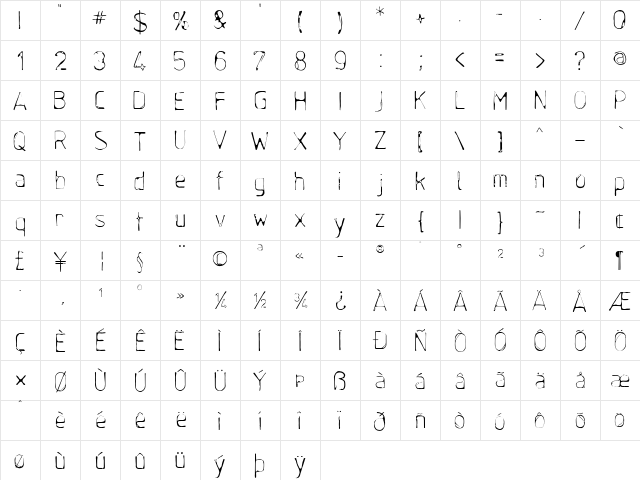
Boomshanker Regular
Design Context for Boomshanker Typeface
Boomshanker offers clean, dependable letterforms without strong stylistic allegiance, making it a practical choice for designers who need flexibility.
Pro Tip: Pair Boomshanker with a font of contrasting weight or personality to build a more expressive typographic hierarchy.